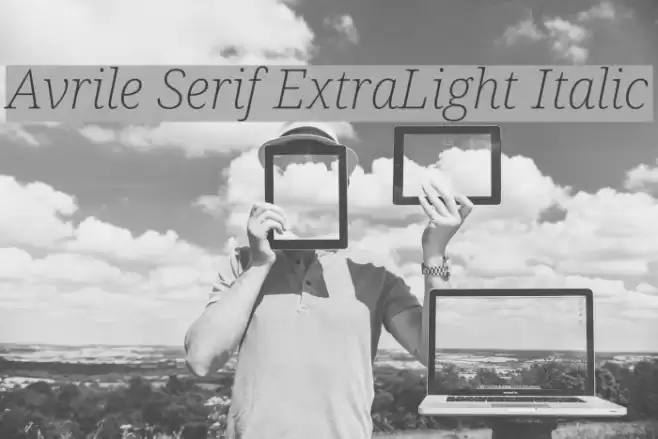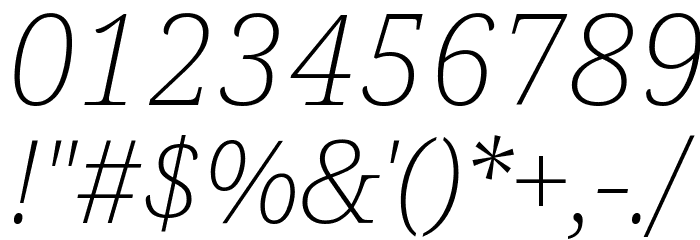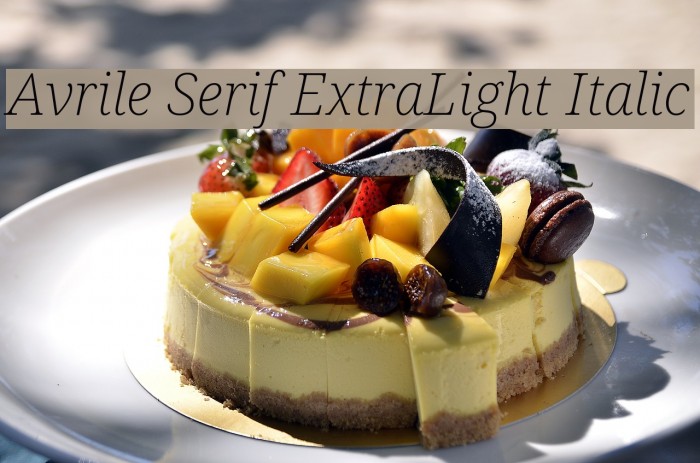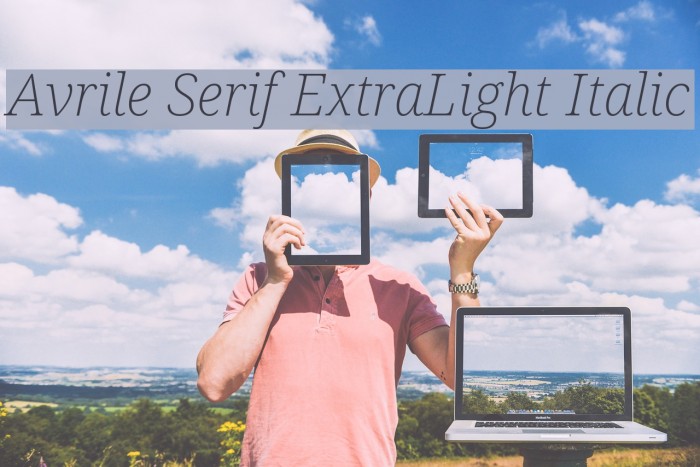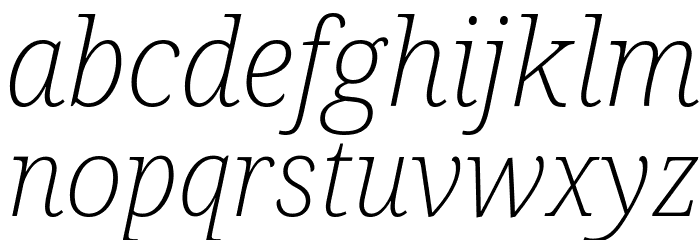
Avrile Serif ExtraLight Italic Font
Avrile Serif ExtraLight Italic Description
This elegant serif font features an extra light weight with a refined and sophisticated appearance. The italic style adds a graceful touch, making it suitable for formal and classic designs. The characters are well-proportioned with a slight slant, enhancing readability while maintaining an artistic flair. The font's thin strokes and delicate serifs contribute to its airy and light feel, perfect for projects requiring a touch of elegance and subtlety. Its design is both timeless and versatile, making it a great choice for a variety of applications.
An elegant, extra light serif font with an italic style from Uncategorized fonts.
- Proposed Projects: Ideal for wedding invitations, luxury branding, editorial design, and elegant packaging.
- Weight: Light
- Overall Style: Classic